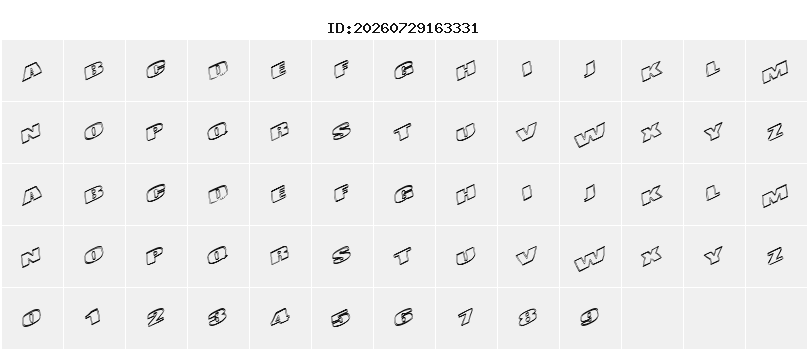
KometenMelodie1 Preview
• Font Name: KometenMelodie1
• Full Font Name: KometenMelodie1
• PostScript Name: KometenMelodie1
• Character Count: 64
About KometenMelodie1.ttf
KometenMelodie1.ttf is a modern, elegant sans-serif font designed for ultimate readability and visual harmony. Perfect for branding, headlines, web design, and print materials.